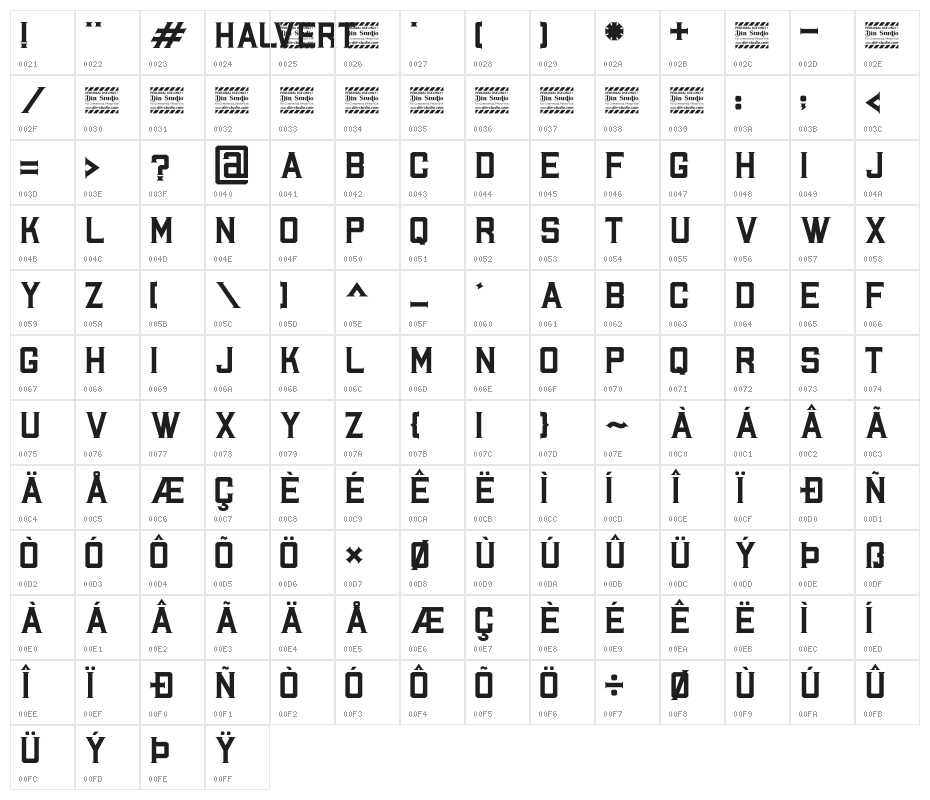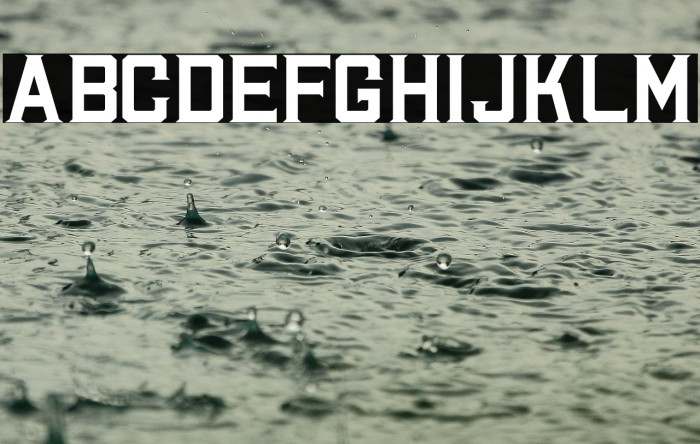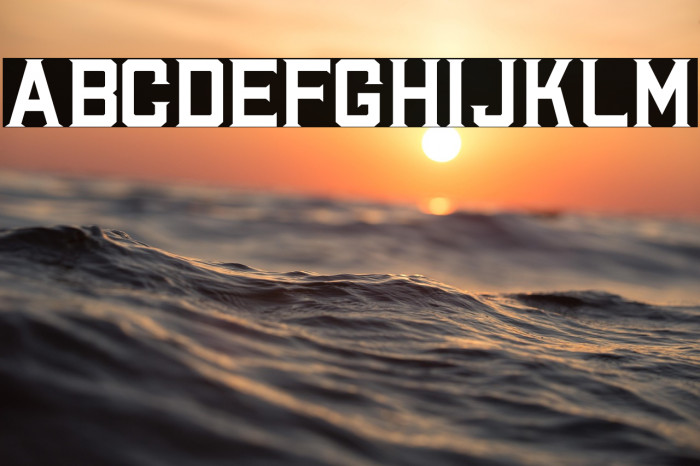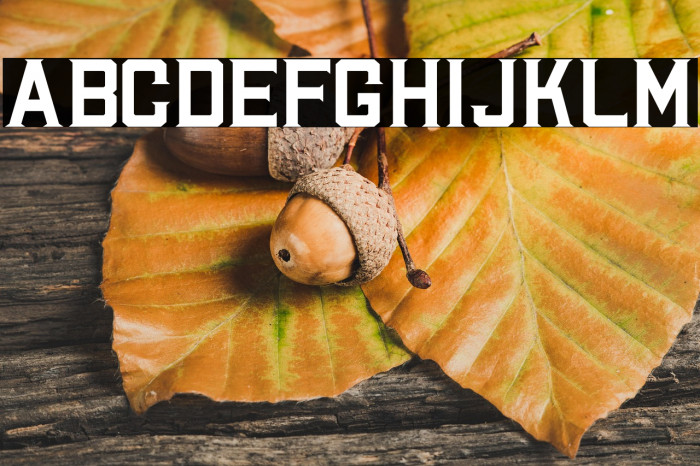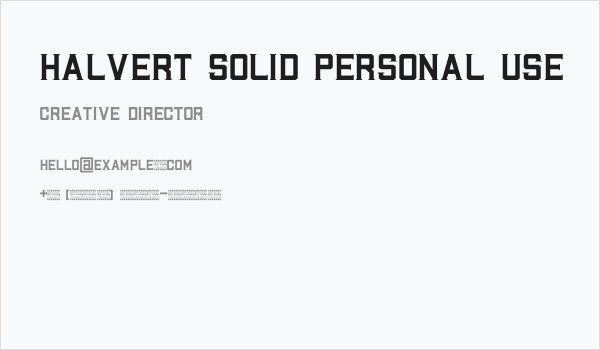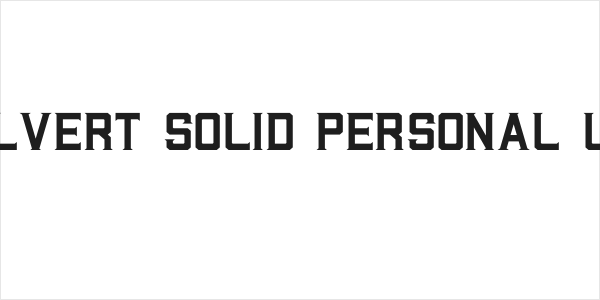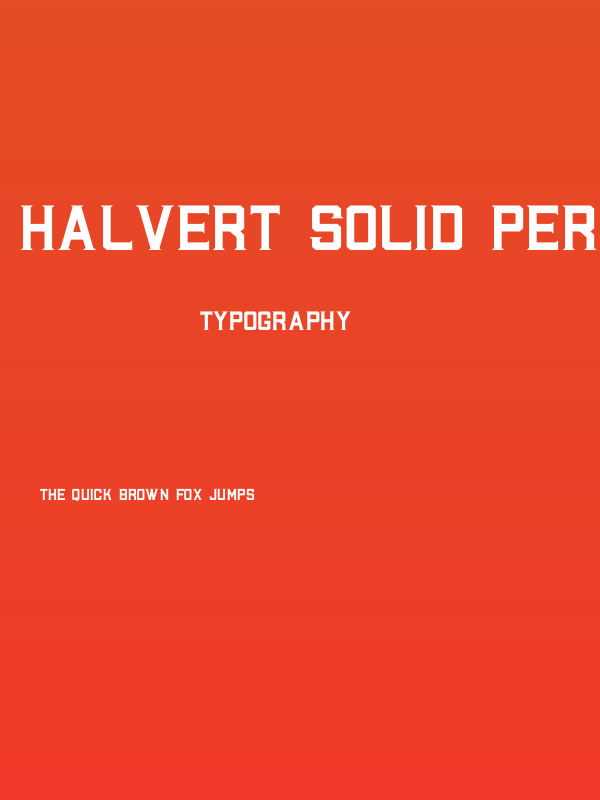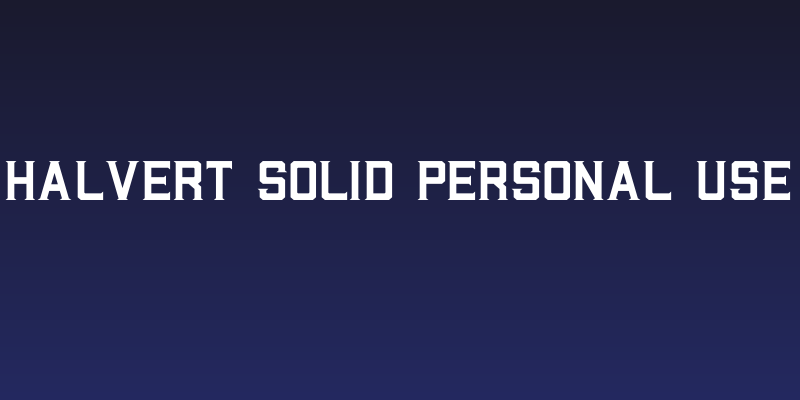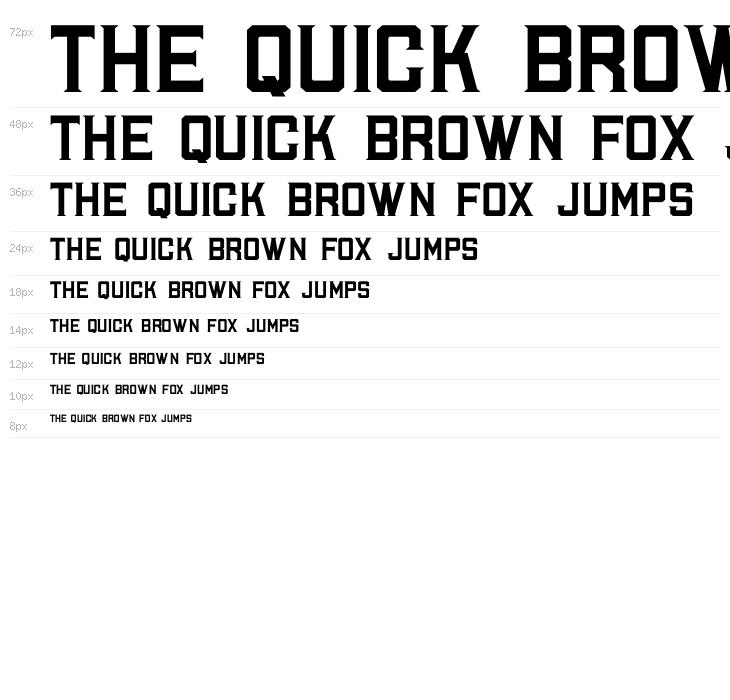
Halvert Solid Personal Use Font
Halvert Solid Personal Use Description
This font features a bold, geometric style with a strong presence, characterized by its solid, block-like letterforms. The uppercase letters are particularly striking, with sharp angles and a uniform thickness that conveys a sense of strength and stability. The design includes subtle serifs that add a touch of traditionalism to its otherwise modern aesthetic. The font's clean lines and consistent weight make it highly legible, even at smaller sizes. It includes a full set of uppercase letters, numbers, and a selection of special characters, making it versatile for various design needs.
| Proposed Projects | Ideal for branding, posters, headlines, and any project requiring a strong, impactful typeface. |